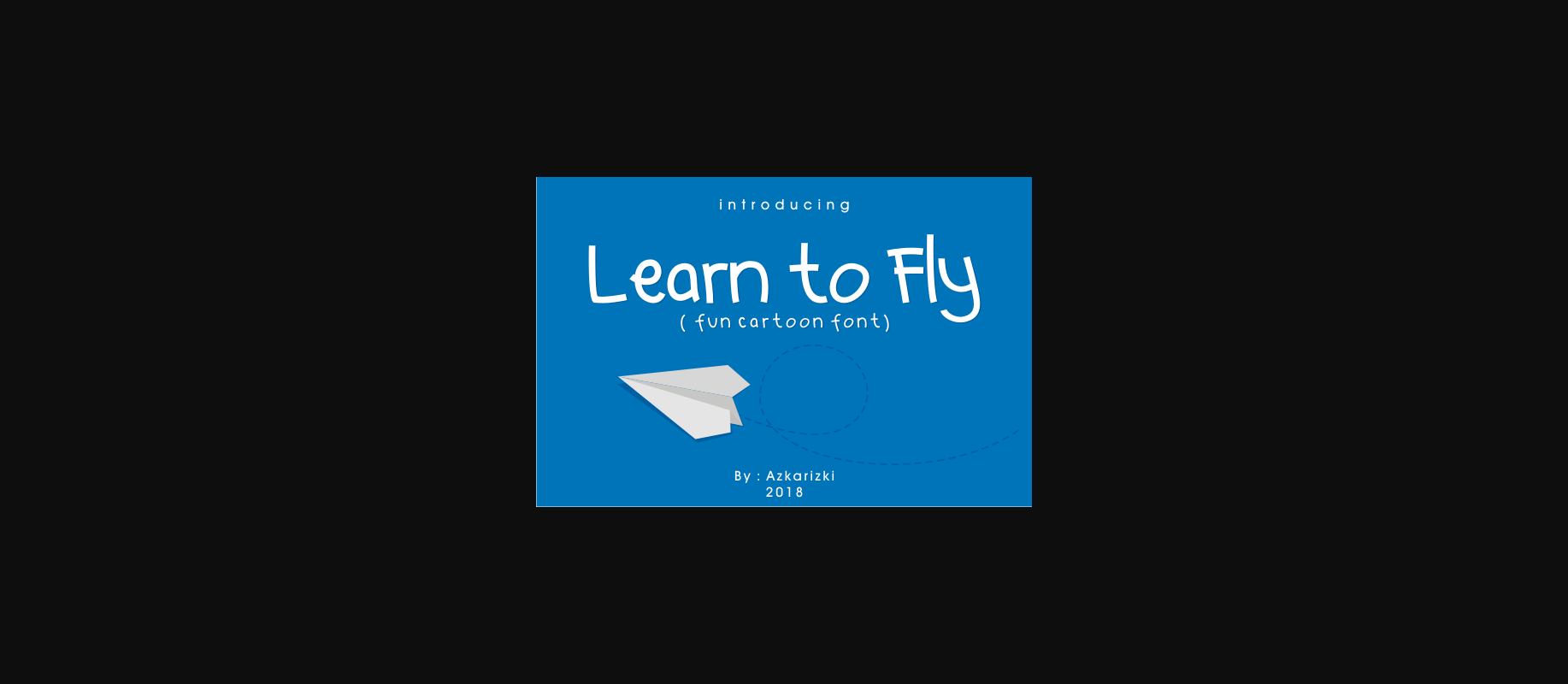
HomeDecorative FontsLearn to Fly Font Decorative Fonts Learn to Fly Font FacebookXPinterestWhatsApp 1 of 1 About Learn to Fly Font The Learn to Fly is a simple font in cartoon style. It will add a fun and playful feel to your designs. DOWNLOAD ON CREATIVE FABRICAThis font is sold and delivered by Creative Fabrica. Font Canyon may earn a commission if you buy through this link. People also explored Booster Font Hunny Bunny Font Snowing Cold Outside Font Coffee Time Font Gardita Letter Font Cute Lipstick Font Geffroge Authentic Font Chocolate Font Dogie Font 319 0 TagsLearn to Fly Font Previous articlePassage FontNext articleBulleud Font LEAVE A REPLY Cancel reply Comment: Please enter your comment! Name:* Please enter your name here Email:* You have entered an incorrect email address! Please enter your email address here Website: Save my name, email, and website in this browser for the next time I comment. Personal Use Free Little Pixel Personal Use Free Read more about this font Anders Personal Use Free Read more about this font Monogram Calligraphy Personal Use Free Read more about this font Thruster Personal Use Free Read more about this font BLOG Exploring Font Trends Shaping Communication in the Digital Era Fonts, like all design elements, are subject to trends. They play a crucial role in communicating a brand's personality,... How to Cut Any Font on Cricut: Convert a Font to SVG (Free) Best Fonts for T-Shirt Design – Top 2025 Picks Top 7 Google Fonts Alternatives for Faster and Privacy-Friendly Web Design (2025)